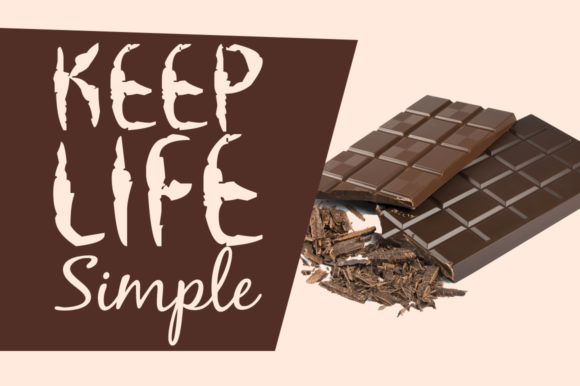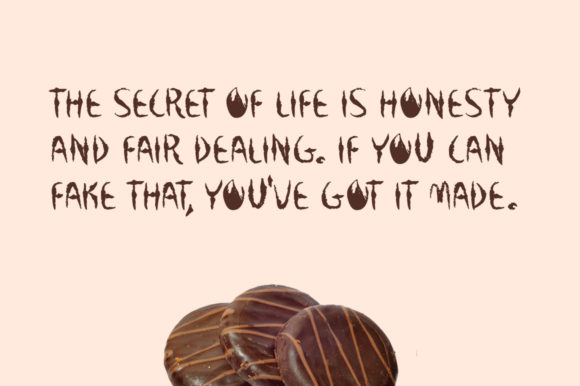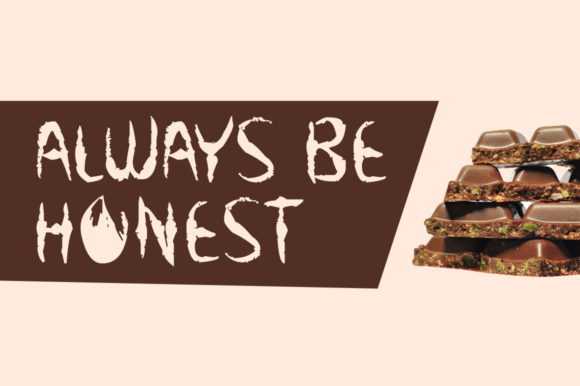
Introduction to Chocolate Realm Font
The Chocolate Realm is a modern display font.
It’s perfectly suited for stationery, logos, t-shirts, papers, print designs, website headers, photo frames, flyers, music covers, posters, image sliders, and much more .
Why Choose Chocolate Realm Font?
Chocolate Realm Font offers exceptional quality and versatility, making it a valuable addition to your design toolkit. Whether you’re creating for personal projects or commercial use, Chocolate Realm Font delivers professional results.